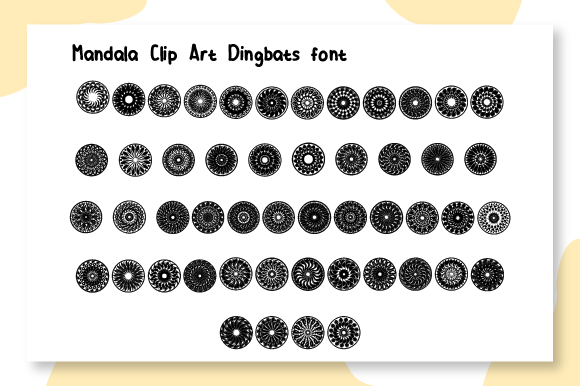
Introduction to Mandala Font Font
Fonts play a crucial role in design, and the Mandala Font font is a typeface that brings both character and versatility to any project. Whether you’re working on a branding project, a website, or a print design, the Mandala Font font offers a unique style that can elevate your work.
Mandla is a fun and beautiful dingbats font with a mandala ornament theme.
It will add a beautiful twist to any design project .
Key Features of Mandala Font Font
Why Choose Mandala Font Font?
The Mandala Font font is more than just a typeface – it’s a design tool that helps you communicate your message with style and clarity. Its unique character set and versatile design make it suitable for a wide range of applications, from elegant invitations to bold headlines.
With its carefully crafted letterforms and balanced proportions, the Mandala Font font ensures readability and visual appeal across all mediums.
What makes Mandala Font font special?
The Mandala Font font stands out with its unique design, exceptional readability, and versatility across various design applications.